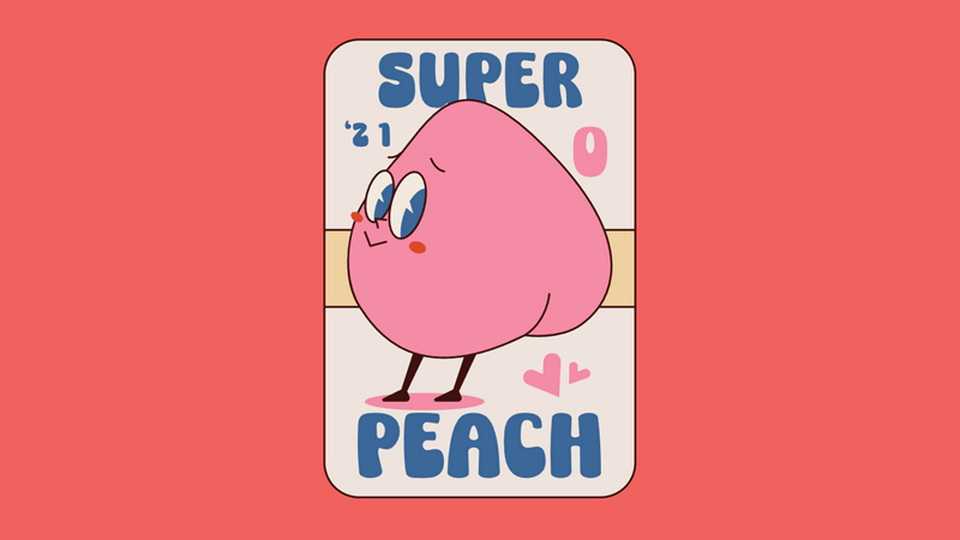
Download Super Peach font, a whimsically adorable cartoon typeface, crafted with a carefree hand, each letter dancing with a playful spirit that’s impossible to resist.